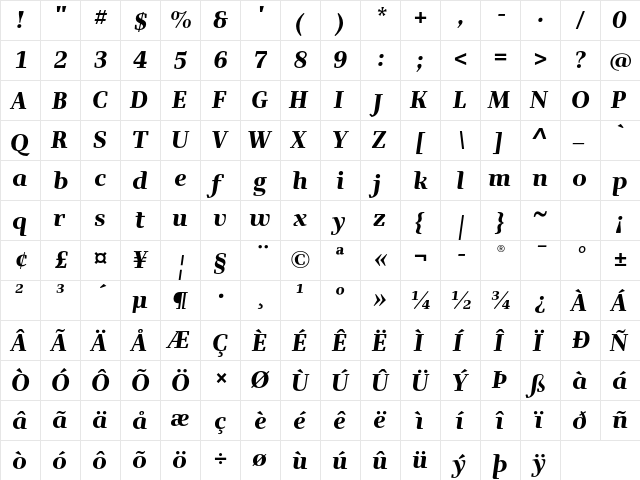
Alfon MD Heavy Italic
| Foundry | Terminal Design Inc. |
| Designer | James Montalbano |
Design Context for Alfon MD Typeface
Alfon MD offers clean, dependable letterforms without strong stylistic allegiance, making it a practical choice for designers who need flexibility. The slanted form adds forward momentum and visual energy.
Pro Tip: Try Alfon MD for annotation and caption copy alongside an upright companion — the contrast in angle creates a dynamic but ordered typographic system.